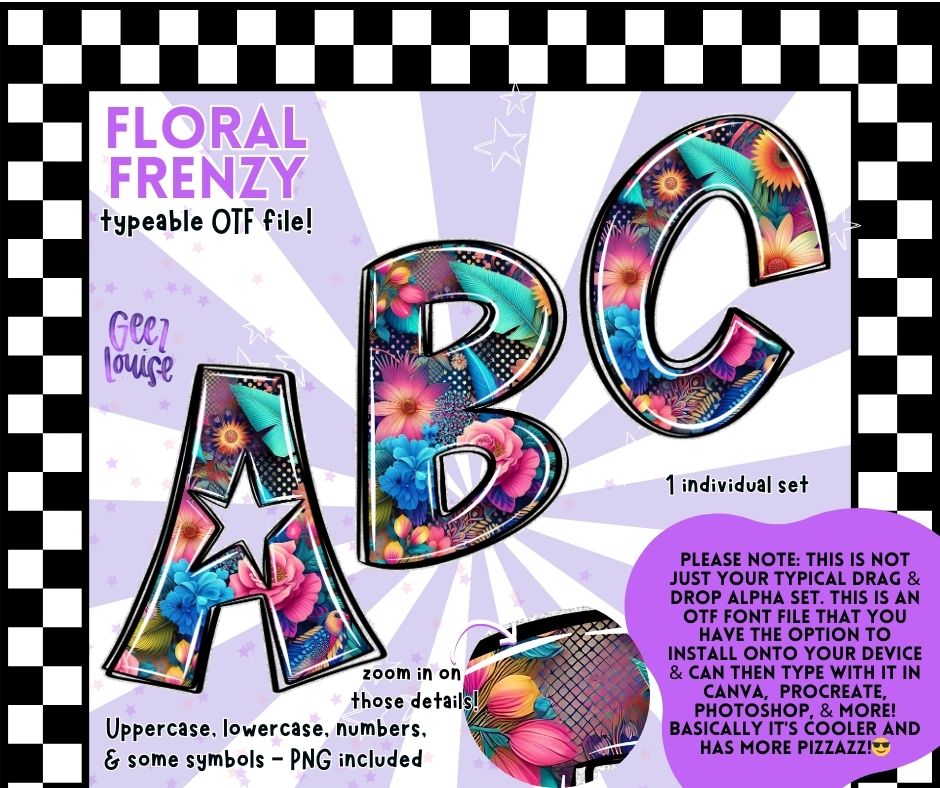
Floral Frenzy – Vibrant Floral OTF Font + PNG Alpha Set
Go bold or go home with the Floral Frenzy OTF Font and PNG Alpha Set! This digital font features an explosion of colorful florals layered with detail and depth—perfect for creators who want their designs to POP. Includes uppercase, lowercase, numbers, and select symbols in both typeable and PNG formats.
✔️ Vibrant floral designs perfect for bold creative projects